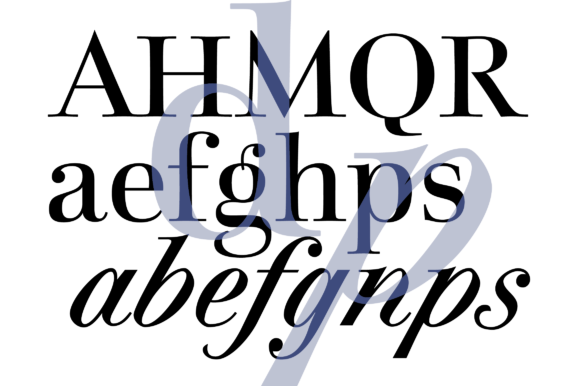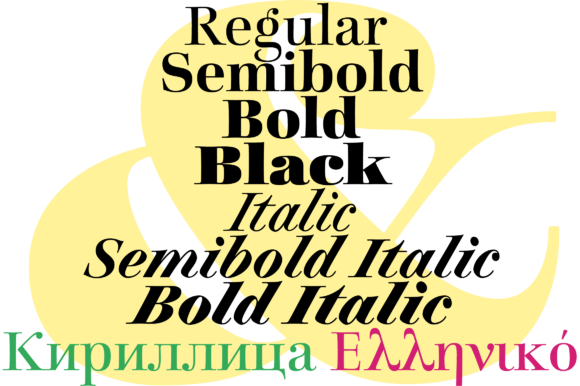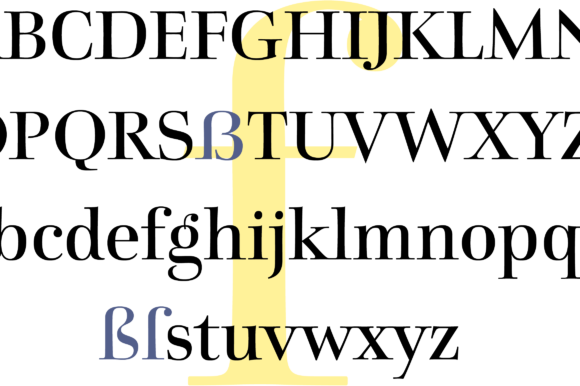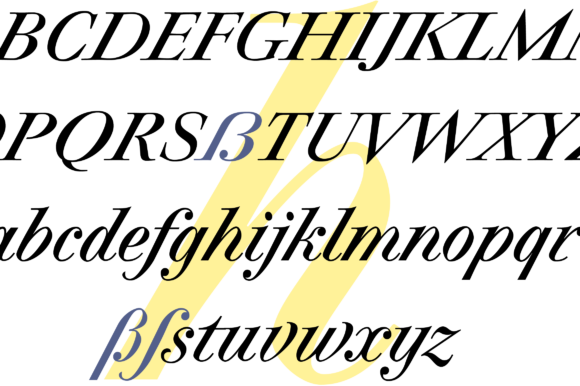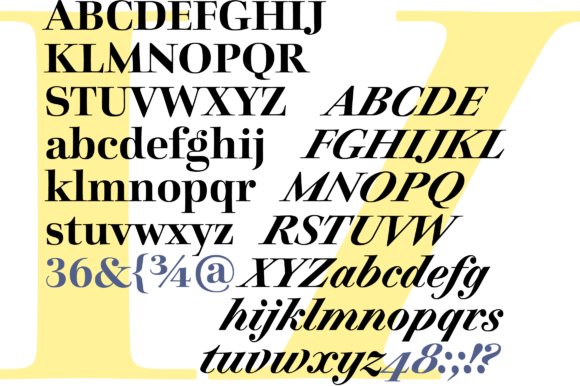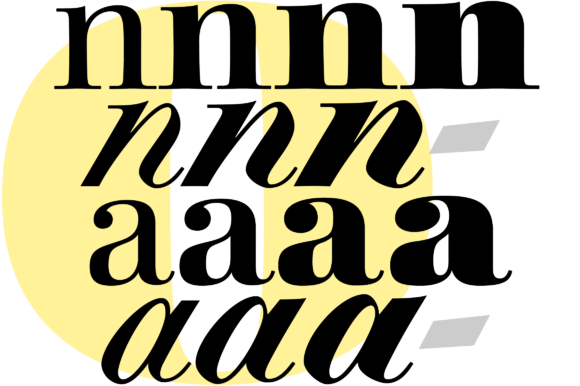
Introducing Charpentier Classicistique Pro: Elevate Your Designs with a Unique Roman Serif Font
In the world of typography, a font can make or break a design. It’s the foundation upon which your creative vision is built, and choosing the right one can be a daunting task. If you’re on the hunt for a typeface that exudes elegance, sophistication, and a touch of uniqueness, look no further than Charpentier Classicistique Pro. This Roman serif font is about to revolutionize the way you approach your design projects, turning even the most mundane ideas into standout masterpieces.
The Essence of Charpentier Classicistique Pro
Charpentier Classicistique Pro is not just another font; it’s an experience. With its distinctive Roman serif characteristics, it brings a level of classic sophistication to your designs that’s hard to match. The font’s unique blend of traditional and modern elements makes it versatile enough to be used across a wide range of projects, from editorial and advertising to packaging and digital media.
What Sets Charpentier Classicistique Pro Apart
- Unique Serif Style: The serif style of Charpentier Classicistique Pro is carefully crafted to add a touch of elegance and refinement to any text. Its subtle flair and precision make it perfect for designs that demand a high level of sophistication.
- Versatility: Whether you’re working on a luxury brand campaign, a high-end product launch, or a sophisticated editorial piece, Charpentier Classicistique Pro adapts seamlessly to any design aesthetic.
- Legibility: Despite its elegant and intricate design, Charpentier Classicistique Pro maintains exceptional legibility, making it suitable for both body text and headlines.
- Professional Grade: As a pro font, Charpentier Classicistique Pro is designed with professionals in mind, offering a range of features and weights that cater to the needs of designers and crafters.
Applications of Charpentier Classicistique Pro
The applications of Charpentier Classicistique Pro are as diverse as its features. Here are a few ways you can integrate this exceptional font into your workflow:
- Editorial Design: Bring a touch of luxury to magazines, newspapers, and journals with Charpentier Classicistique Pro’s refined and classic aesthetic.
- Branding and Advertising: Elevate your brand’s visual identity with a font that communicates sophistication, elegance, and prestige.
- Packaging: Stand out on store shelves with packaging that exudes high-end quality and attention to detail.
- Digital Media: Enhance your website, app, or digital publication with a font that offers both style and substance.
Tips for Using Charpentier Classicistique Pro
To get the most out of Charpentier Classicistique Pro, consider the following tips:
- Experiment with Weights: The font comes in multiple weights, allowing you to create visual hierarchy and add depth to your designs.
- Pair it Wisely: Combine Charpentier Classicistique Pro with complementary fonts to create striking contrasts and add interest to your layouts.
- Pay Attention to Kerning: Although Charpentier Classicistique Pro is designed for optimal spacing, always review your text for kerning adjustments to ensure perfect readability.
Charpentier Classicistique Pro is more than just a font; it’s a design statement. Its unique blend of classic Roman serifs and modern sensibilities makes it an invaluable tool for designers and crafters looking to elevate their work. Whether you’re aiming to create a luxurious brand image, craft compelling editorial content, or simply add a touch of elegance to your designs, Charpentier Classicistique Pro is the perfect choice. Dive into the world of sophisticated typography and discover how this exceptional font can transform your creative projects.